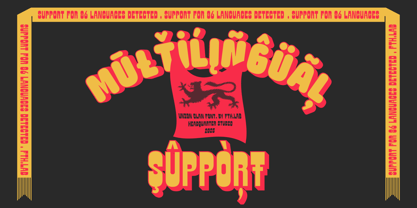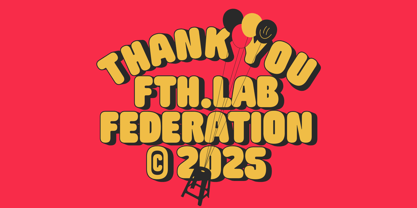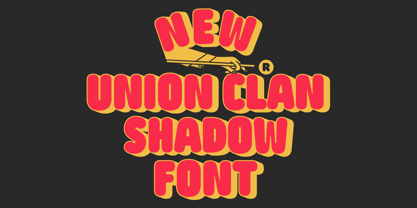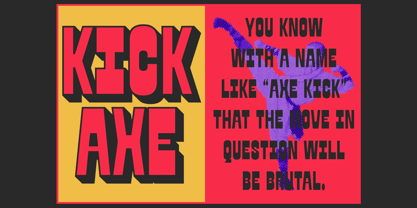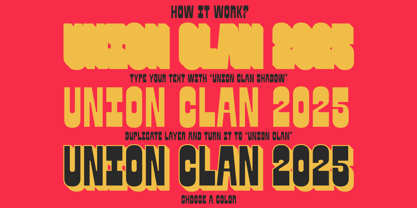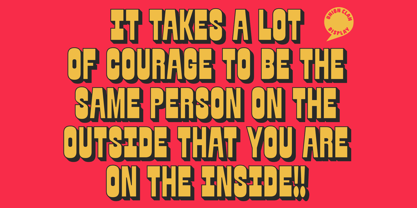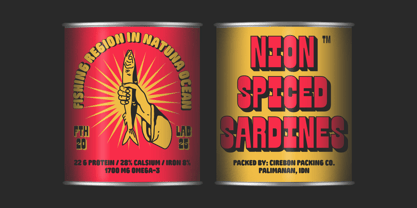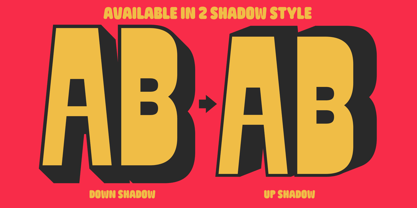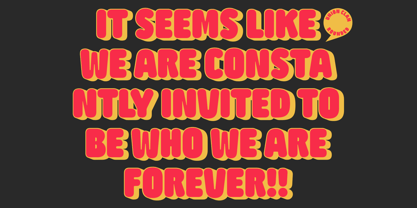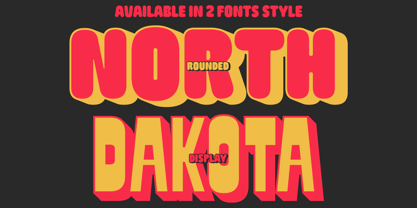
Union Clan
The Union Clan Font Family was designed by Wisnu Cipto Wibowo and published by Fateh.Lab. Union Clan contains 6 styles and family package options. More about this family
Union Clan is the latest work released from Fateh. Lab! This is a type of shadow font, and it marks the beginning of a shift in current design trends. With a soft yet bold typographic style, Union Clan has all the elements of life in today's design world. With support for two font styles, this is the right answer for those of you who are designing something great. It has superior weight in posters, social media, news headlines, magazine headlines, clothing, large print formats - and wherever you want to see it.